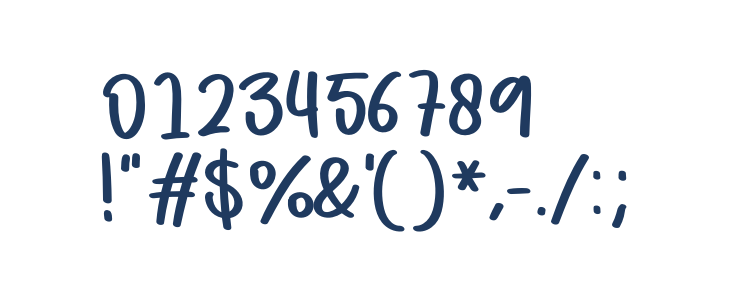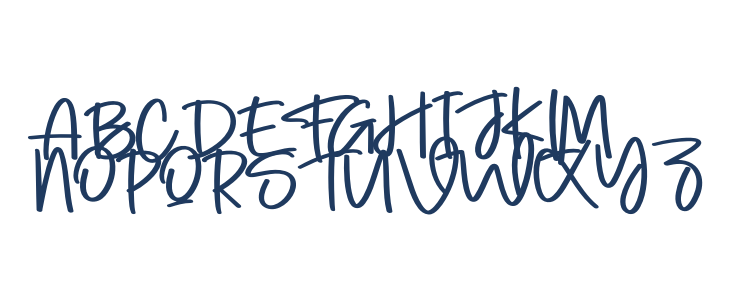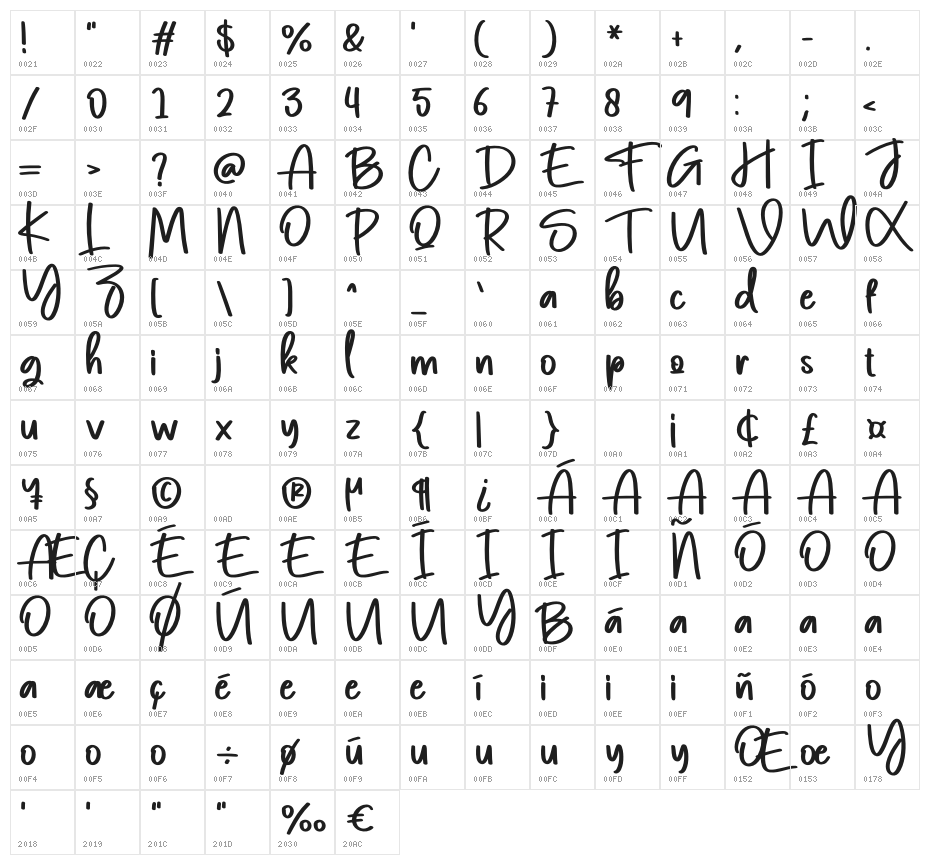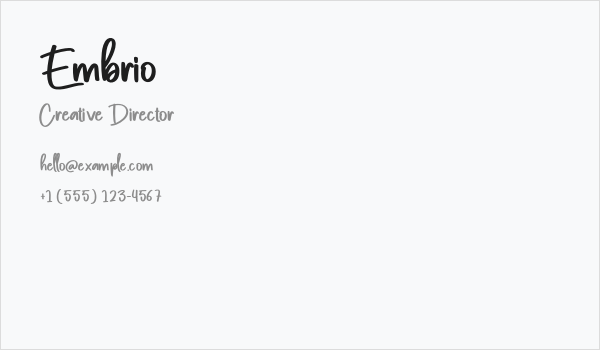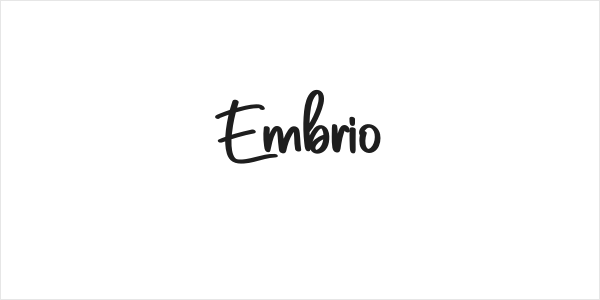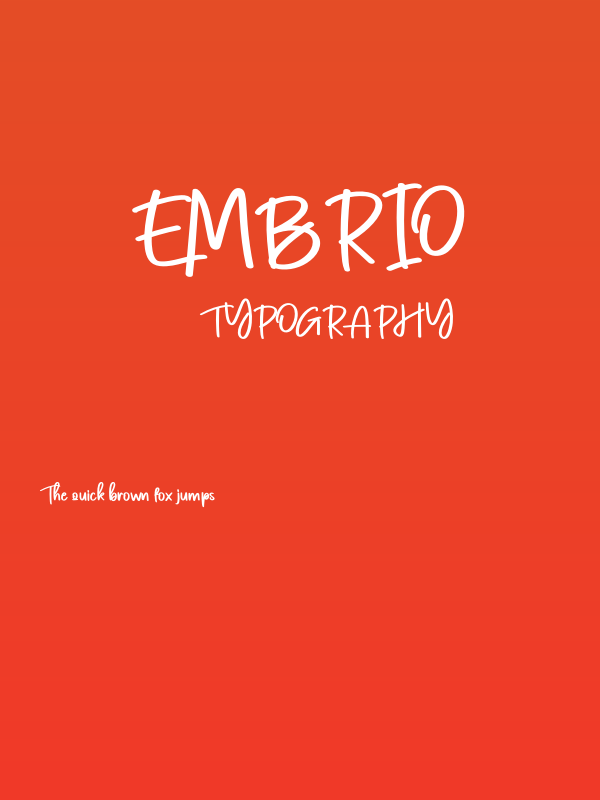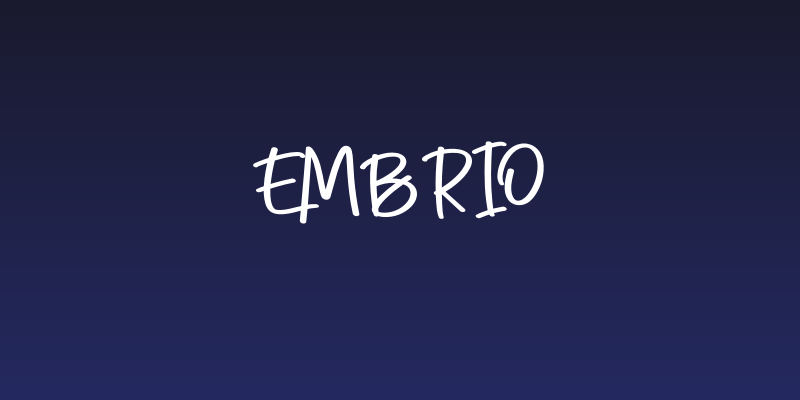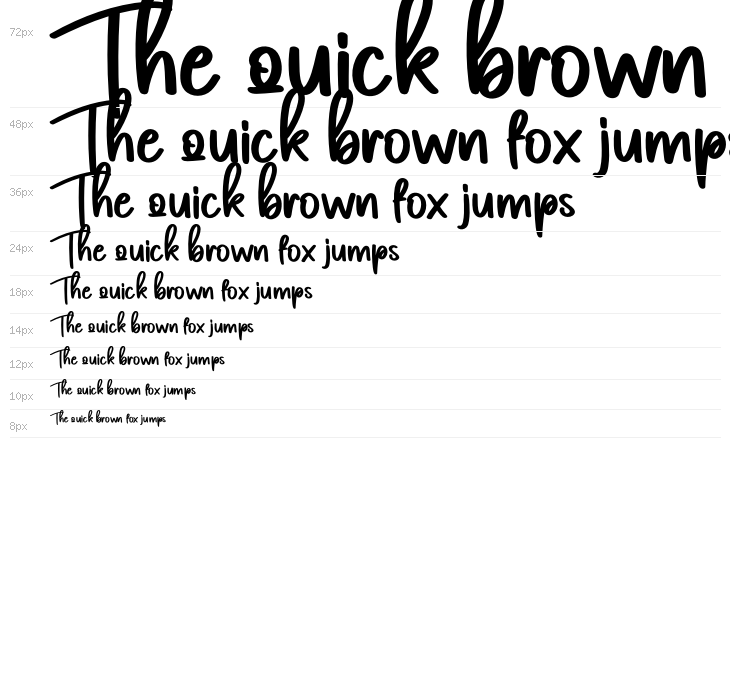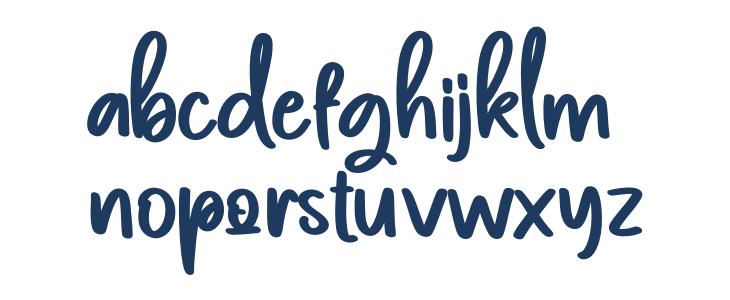
Embrio Font
Embrio Description
A playful, handwritten typeface with a casual and energetic feel, featuring rounded terminals and variable stroke thickness. The uppercase letters are tall and narrow, while the lowercase set is more rounded and bold, creating a dynamic contrast. The numerals and punctuation maintain the informal, hand-drawn style.
| Overall Style | Playful, Casual, Modern |
| Use Case | Headlines, Logos, Informal text, Posters |
| Proposed Projects | Children's books, greeting cards, posters, social media graphics, branding for creative businesses. |